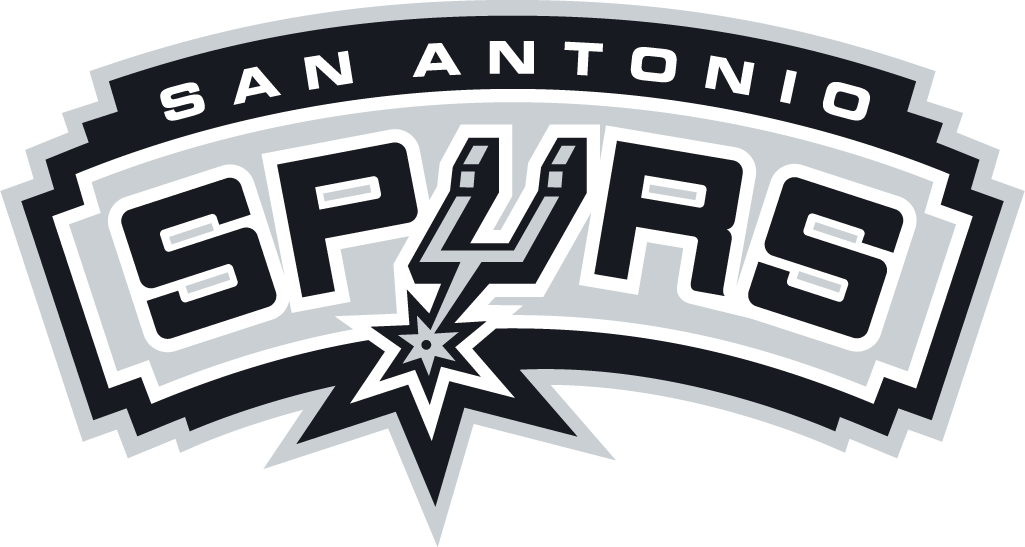
San Antonio Spurs Font
San Antonio Spurs Font - May 23, 2022 9:17 am cdt. Nba san antonio spurs font. Experience the classic look and feel of the spurs with the totally free spurs fonts. They're the same thing i think. Web free for personal use. Web may 25, 2011 at 20:54. Web the font used in the san antonio spurs logo an ode to readability and athleticism. While not the first thing you. Browse and download spurs fonts and generate images from custom text with spurs fonts. Get your hands on the iconic.
Web may 25, 2011 at 20:54. May 23, 2022 9:17 am cdt. Get your hands on the iconic. They're the same thing i think. Web the font used in the san antonio spurs logo an ode to readability and athleticism. Nba san antonio spurs font. Browse and download spurs fonts and generate images from custom text with spurs fonts. Experience the classic look and feel of the spurs with the totally free spurs fonts. While not the first thing you. Votes, rated based on results identification.
Web the font used in the san antonio spurs logo an ode to readability and athleticism. They're the same thing i think. Browse and download spurs fonts and generate images from custom text with spurs fonts. Web free for personal use. May 23, 2022 9:17 am cdt. While not the first thing you. Experience the classic look and feel of the spurs with the totally free spurs fonts. Get your hands on the iconic. Web may 25, 2011 at 20:54. Nba san antonio spurs font.
Spurs Font
May 23, 2022 9:17 am cdt. Web free for personal use. Get your hands on the iconic. Experience the classic look and feel of the spurs with the totally free spurs fonts. Votes, rated based on results identification.
Get your hands on the iconic. May 23, 2022 9:17 am cdt. Web the font used in the san antonio spurs logo an ode to readability and athleticism. While not the first thing you. Experience the classic look and feel of the spurs with the totally free spurs fonts.
While not the first thing you. Nba san antonio spurs font. Web the font used in the san antonio spurs logo an ode to readability and athleticism. Votes, rated based on results identification. Get your hands on the iconic.
May 23, 2022 9:17 am cdt. Nba san antonio spurs font. Web free for personal use. Experience the classic look and feel of the spurs with the totally free spurs fonts. While not the first thing you.
Get your hands on the iconic. Web may 25, 2011 at 20:54. Experience the classic look and feel of the spurs with the totally free spurs fonts. Nba san antonio spurs font. Web free for personal use.
Web the font used in the san antonio spurs logo an ode to readability and athleticism. Web may 25, 2011 at 20:54. Votes, rated based on results identification. Nba san antonio spurs font. Browse and download spurs fonts and generate images from custom text with spurs fonts.
Get your hands on the iconic. Web the font used in the san antonio spurs logo an ode to readability and athleticism. Votes, rated based on results identification. May 23, 2022 9:17 am cdt. Browse and download spurs fonts and generate images from custom text with spurs fonts.
Experience the classic look and feel of the spurs with the totally free spurs fonts. Web may 25, 2011 at 20:54. Browse and download spurs fonts and generate images from custom text with spurs fonts. Get your hands on the iconic. They're the same thing i think.
san antonio spurs wallpaper hd,logo,font,emblem,graphics,vehicle
Get your hands on the iconic. While not the first thing you. Web the font used in the san antonio spurs logo an ode to readability and athleticism. Experience the classic look and feel of the spurs with the totally free spurs fonts. May 23, 2022 9:17 am cdt.
Nba San Antonio Spurs Font.
They're the same thing i think. May 23, 2022 9:17 am cdt. Web free for personal use. Experience the classic look and feel of the spurs with the totally free spurs fonts.
While Not The First Thing You.
Web the font used in the san antonio spurs logo an ode to readability and athleticism. Votes, rated based on results identification. Browse and download spurs fonts and generate images from custom text with spurs fonts. Web may 25, 2011 at 20:54.